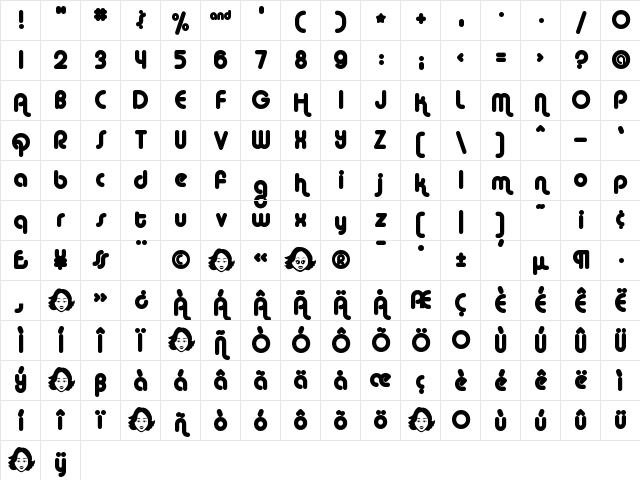
Alba Matter Regular
Design Context for Alba Matter
Alba Matter is a composed and adaptable typeface that performs quietly and consistently across a wide range of design contexts.